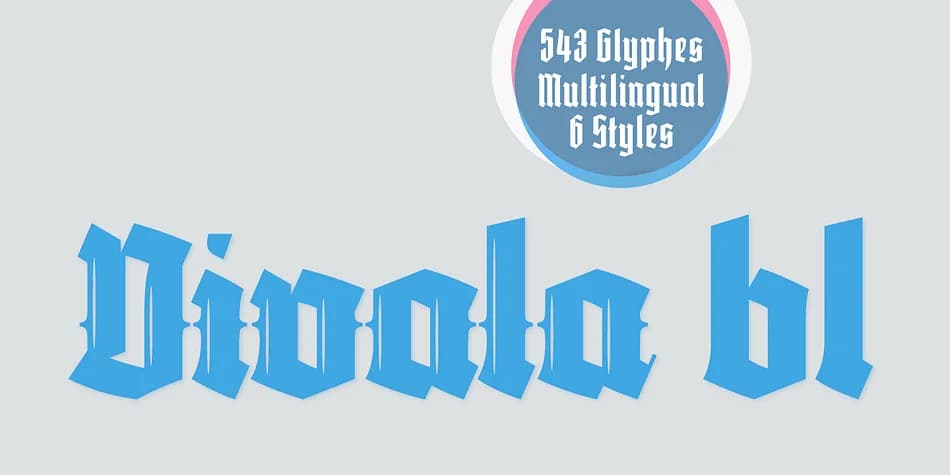
Blackletter typefaces command attention with their bold, ornate character. Vivala bl, designed by Johannes Hoffmann, harnesses that dramatic density while remaining surprisingly functional across different sizes. The high black ratio gives the letterforms a striking visual weight, and the narrow proportions pack substantial personality into confined space. Yet despite the heaviness, the design maintains enough distinction between individual characters to prevent that muddy appearance you sometimes get with condensed blackletters.
This typeface finds its footing in ornate wedding invitation suites, luxury wine and spirits labels that evoke historical refinement, Gothic fantasy book cover designs, and formal heraldic work where authentic period detail truly matters. The inclusion of contextual alternates and ligatures adds that nuanced craftsmanship, allowing you to fine-tune compositions with character variations that feel organic rather than forced. The range of alternates gives designers real flexibility without needing to juggle multiple weights, which keeps file management clean and simple.
- Ornate, Gothic
- Logos, Certificates
- medieval themes, band merch, and tattoo lettering
- a clean sans-serif for body text
Vivala bl Font is a blackletter font that shines as a display or heading face. Pair it with a clean serif or sans-serif font for body text β the contrast creates a clear hierarchy while the two styles stay balanced and easy to read.